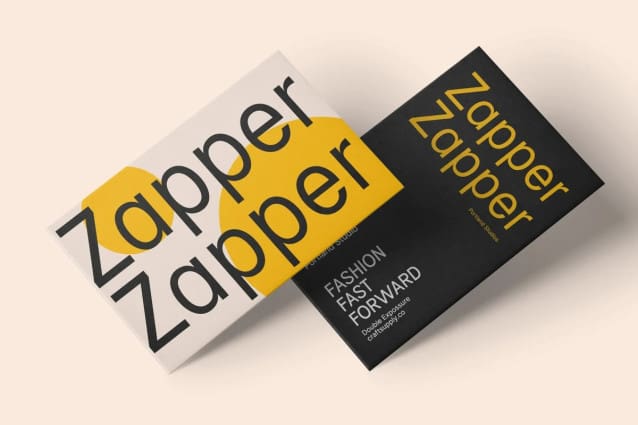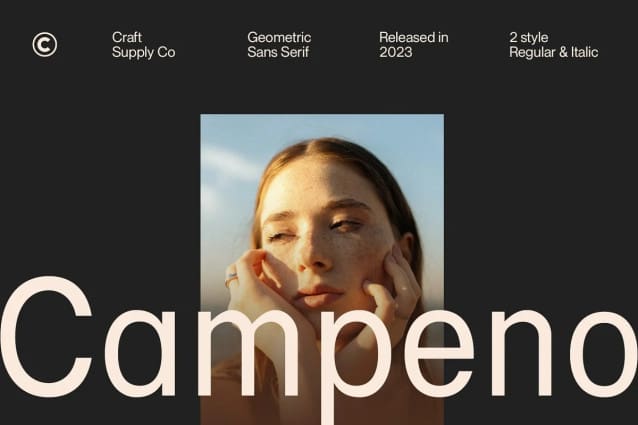
Campeno Font
Campeno Font, a Geometric Sans Serif font that embodies precision and order. This font is the epitome of geometric perfection, making it an ideal choice for various editorial applications.
Campeno’s geometric form is what sets it apart and makes it a top choice for editorial needs. Whether you’re working on magazines, long-form text, or other editorial projects, its geometric precision enhances readability and offers editorial excellence.
What makes Campeno even more exceptional is its versatility. It seamlessly adapts to diverse design contexts, ensuring that it can be used for a wide range of projects, from magazines to websites and beyond.
Beyond its geometric aesthetics, Campeno Font excels in providing engaging readability. It guides the reader through the content, focusing on the message while maintaining a visually appealing design.
In summary, Campeno Font – Geometric Sans Serif is the font that brings precision and clarity to your editorial projects. Its geometric form ensures that your content is not only engaging but also visually appealing, catering to a broad readership while maintaining a high standard of clarity. Whether you’re working on magazines, websites, or other editorial endeavors, Campeno stands out as a font that combines aesthetics with functionality, offering editorial excellence for your projects.